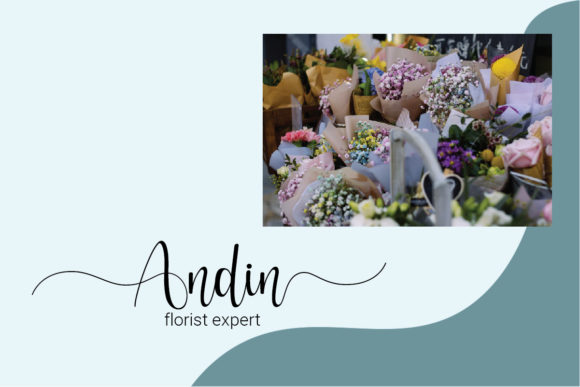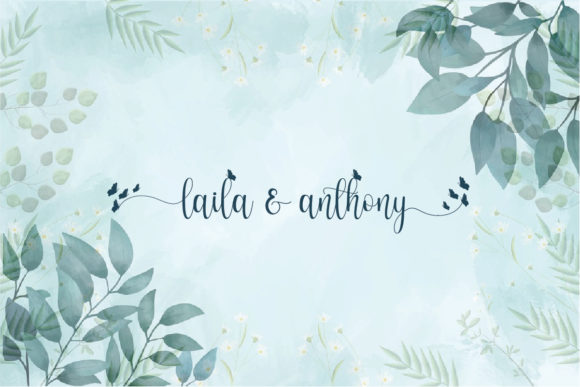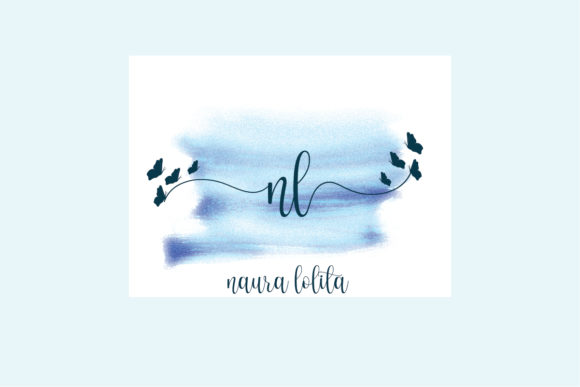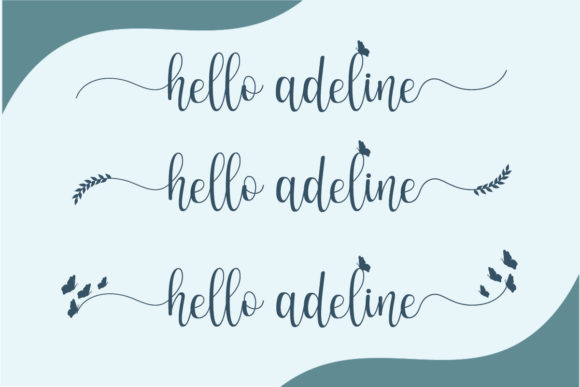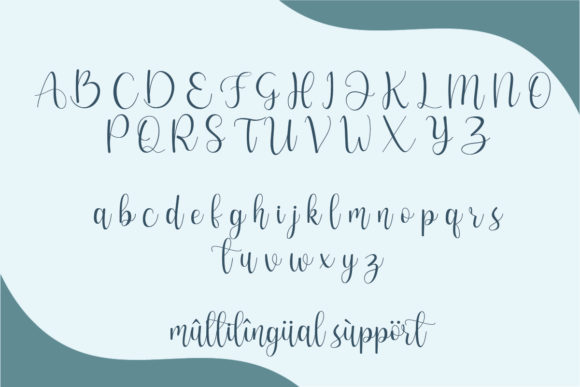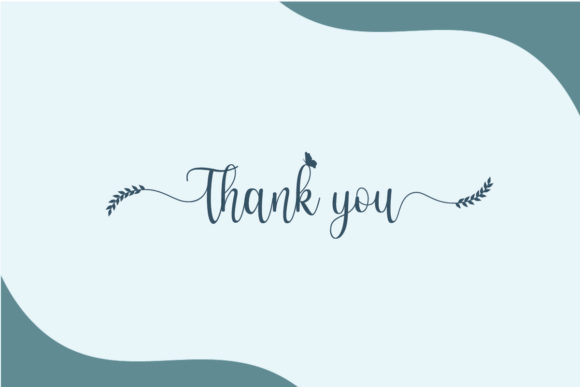
Introduction to Hello Adeline Font
Hello Adeline is a unique and elegant handwritten font.
It looks beautiful on a variety of designs requiring a personalized style, such as wedding invitations, thank you cards, weddings, greeting cards, logos and so on This font is PUA encoded which means you can access all of the glyphs and swashes with ease.